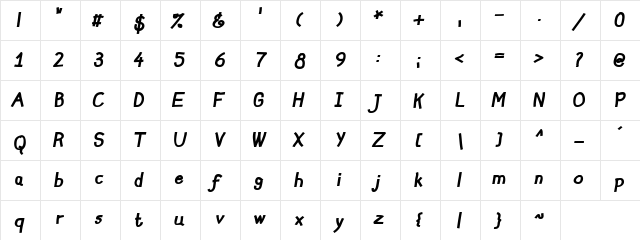
Trilok BoldItalic
| Foundry | Meir Sadan |
| Designer | Meir Sadan |
Design Context for Trilok Typeface
Trilok offers clean, dependable letterforms without strong stylistic allegiance, making it a practical choice for designers who need flexibility. The slanted form adds forward momentum and visual energy. The heavy weight commands attention and anchors typographic hierarchies.
Pro Tip: Use Trilok for emphasis, pull quotes, and subheadings where its slanted energy can add rhythm to the layout.